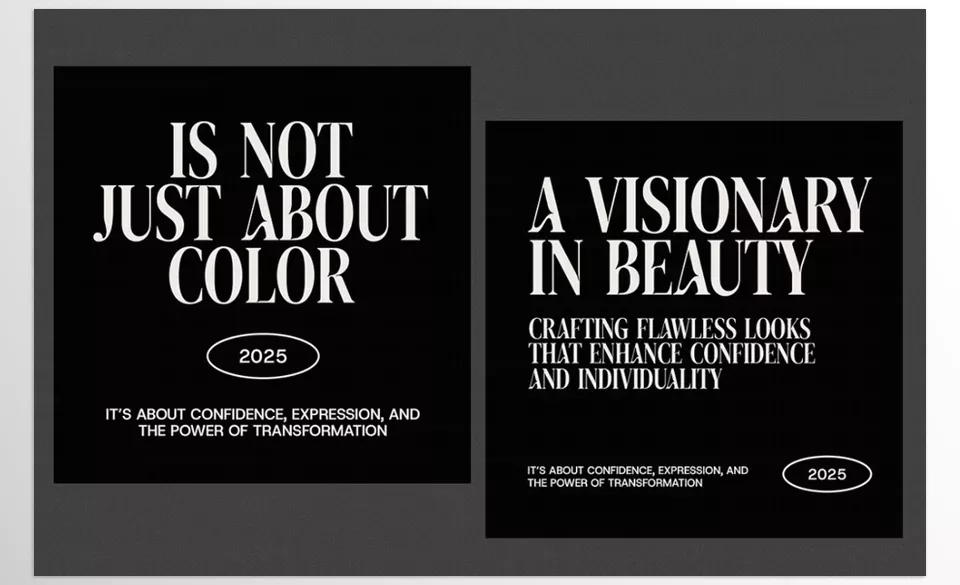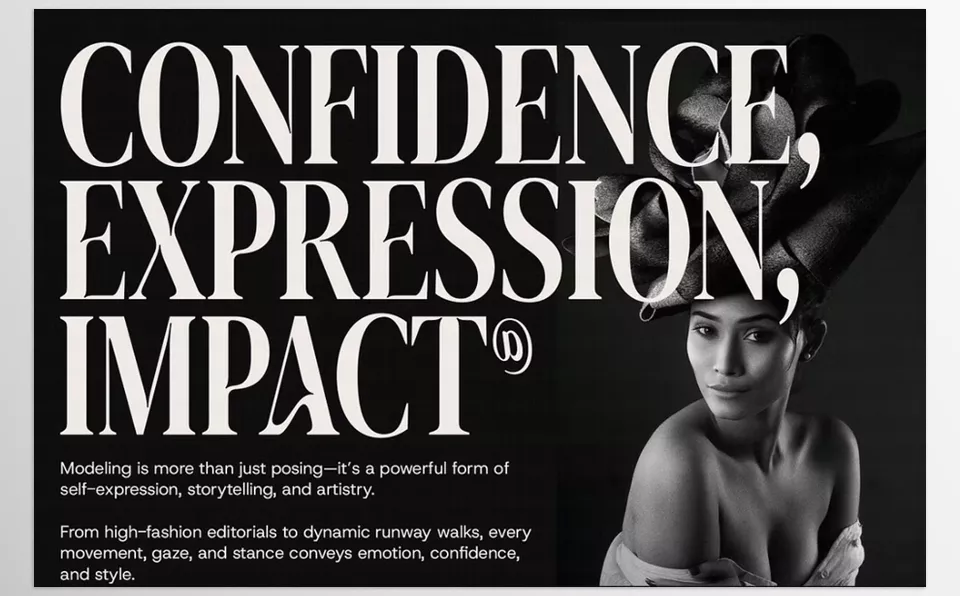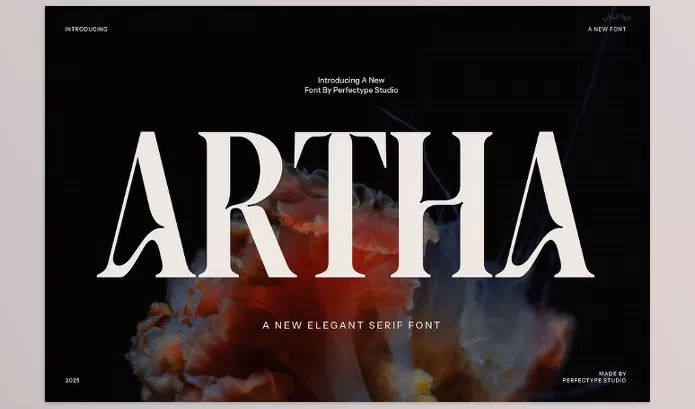
Creative Market – Artha Elegant Serif Font is an amazing masterpiece of a typeface that combines the beauty of traditional serif fonts with modern touches.
Perfectype – Artha Elegant Serif Font Features
- Modern classic fusion: Combines the traditional beauty of serif with contemporary design elements.
- Refined Serifs: Possesses Clean lines and rationed cuts that give a timeless look.
- Unique ligatures: Stunning ligatures that promote uniformity of adjoining letters within a word.
- Alternate Characters: A design with other forms that deviate from the original gives freedom of creating unique pieces and, therefore, flexible designs.
- Timeless Looks: Clients will see sophisticated designs that are professional, even in their most casual forms.
- Vast Uses: Designs are appropriate for branding and business logos, advertisements, etc.
- Professional Aesthetic: Boosts sophistication and style with ease.
Image 1: Timeless elegance meets modern design.
Image 2: Refined sophistication to elevate your brand.